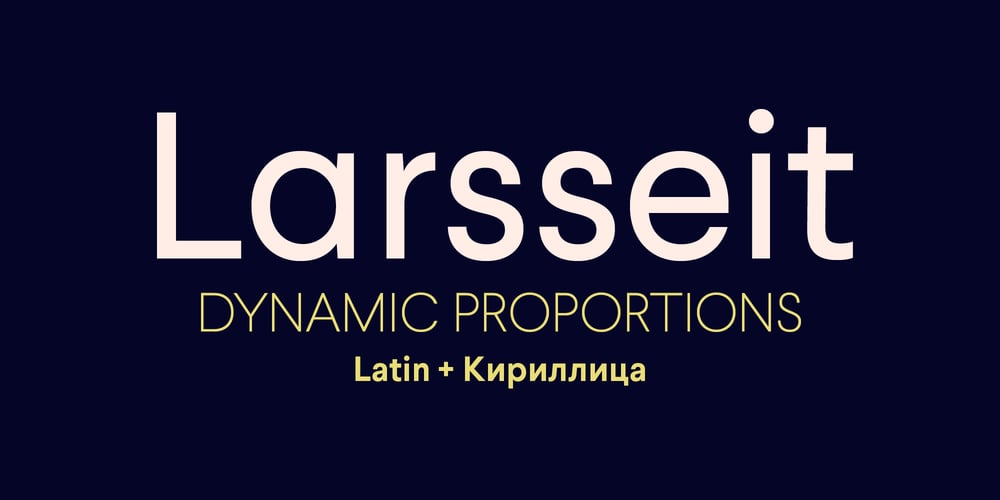
Larsseit
Larsseit font
Larsseit Font Family was designed by Nico Inosanto and published by Type Dynamic. Larsseit contains 12 styles and family package options. Larsseit is a sans which mixes a very low contrast and classical proportions. Larsseit emphasizes cleanliness, readability and objectivity. The Larsseit family includes 6 weights, from UltraThin to Black, with their corresponding italics and Small Caps. Each font includes OpenType Features such as Proportional Figures, Tabular Figures, Numerators, Superscripts, Denominators, Scientific Inferiors, Subscript, Ordinals, Ligatures and Fractions.Larsseit family supports Latin and Cyrillic, all these languages are covered:Latin language support:Afrikaans, Albanian, Asturian, Azeri, Basque, Bosnian, Breton, Bulgarian, Catalan, Cornish, Corsican, Croatian, Czech, Danish, Dutch, English, Esperanto, Estonian, Faroese, Filipino, Finnish, Flemish, French, Frisian, Friulian, Gaelic, Galician, German, Greenlandic, Hungarian, Icelandic, Indonesian, Irish, Italian, Kurdish, Latin, Latvian, Lithuanian, Luxembourgish, Malagasy, Malay, Maltese, Maori, Moldavian, Norwegian, Occitan, Polish, Portuguese, Provençal, Romanian, Romansch, Saami, Samoan, Scots, Scottish, Serbian, Slovak, Slovenian, Spanish, Swahili, Swedish, Tagalog, Turkish, Walloon, Welsh, WolofCyrillic language support:Adyghe, Avar, Belarusian, Bulgarian, Buryat, Chechen, Erzya, Ingush, Kabardian, Kalmyk, Karachay-Balkar, Karakalpak, Kazakh, Komi, Kyrgyz, Lak, Macedonian, Moldovan, Mongol, Permyak, Russian, Rusyn, Serbian, Tatar, Tofa, Tuvan, Ukrainian, Uzbek